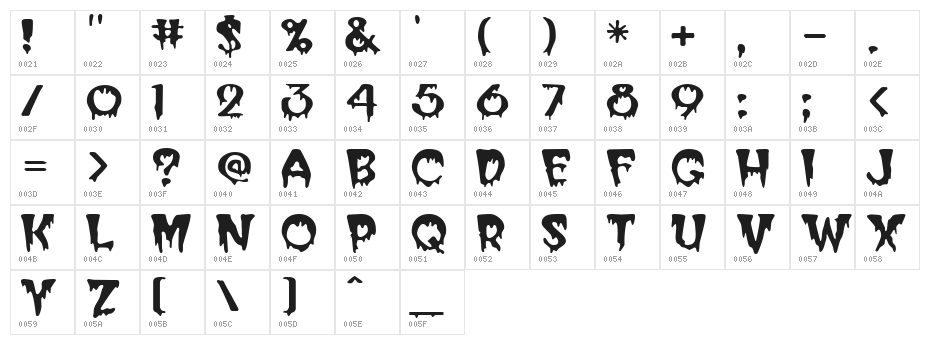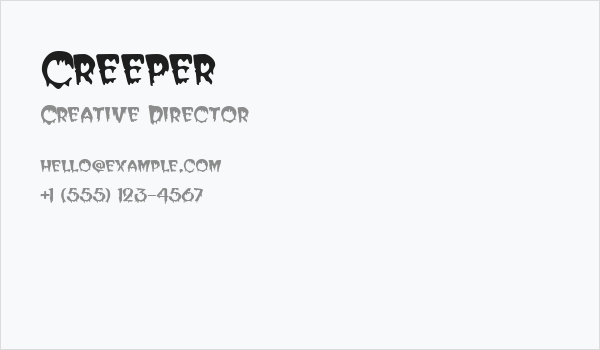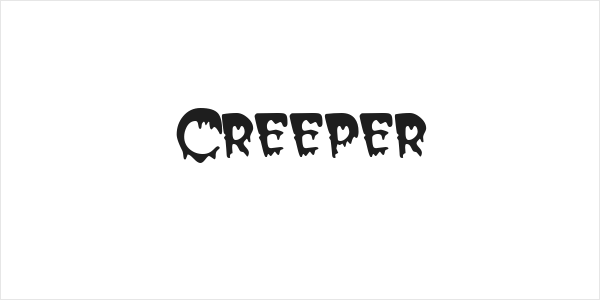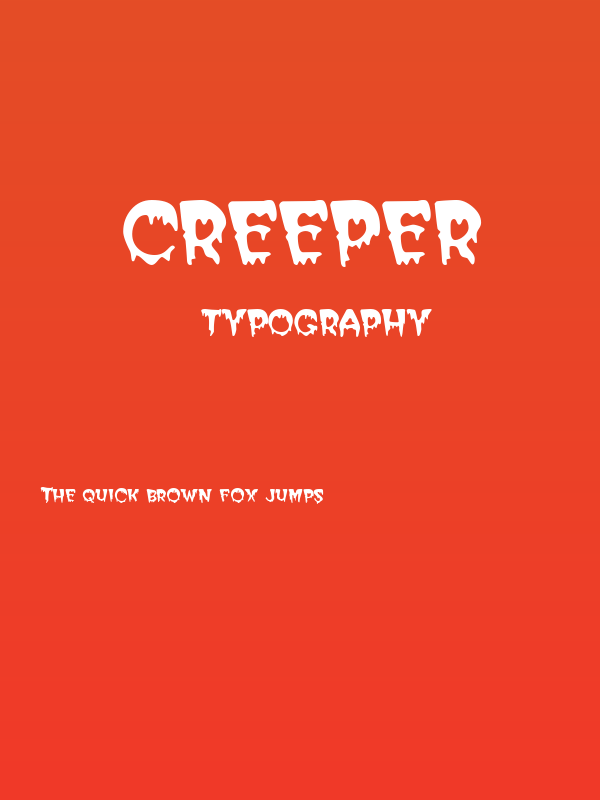
Creeper Font
✎ Liquid
| Progetti proposti | Ideal for Halloween invitations, horror movie posters, haunted house flyers, and themed party decorations. |